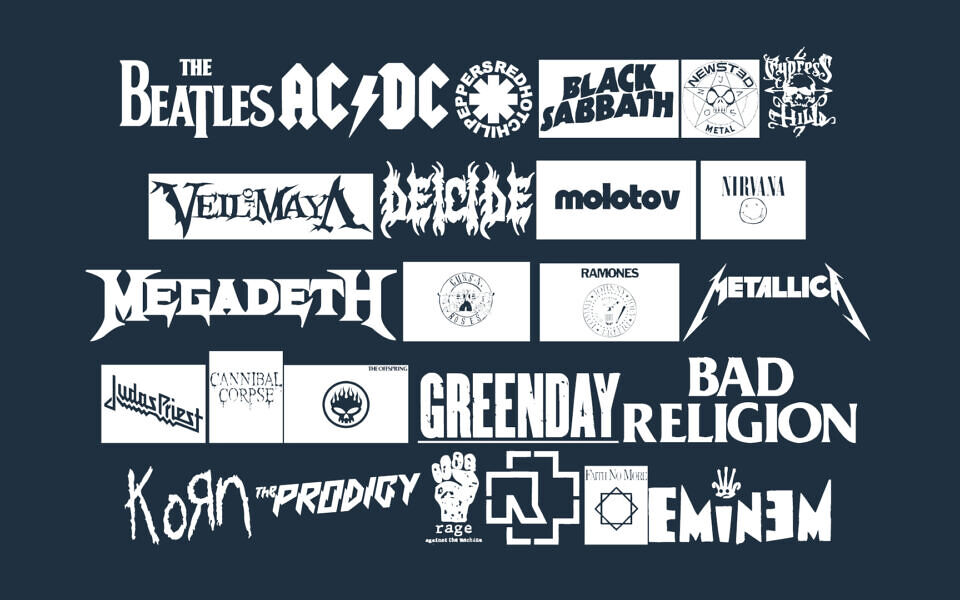
Music Logos TFB Font
Music Logos TFB is a versatile dingbat font featuring a vast collection of iconic music-related symbols and band logos. It serves as a comprehensive library for designers and music enthusiasts looking to incorporate recognizable musical branding into their projects.
Whether you need a specific band logo or general music-themed iconography, this font provides a convenient, high-quality, vector-like solution for creative designs.